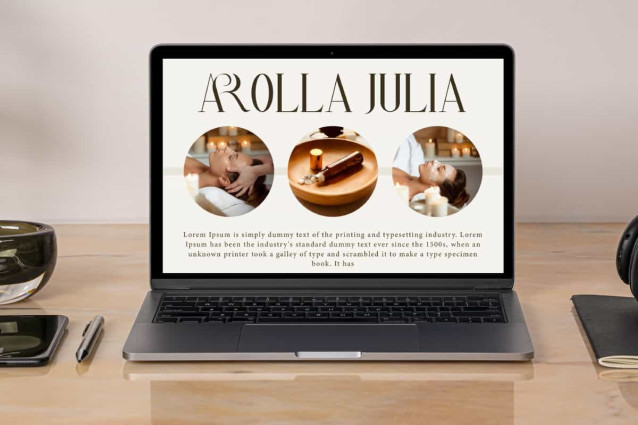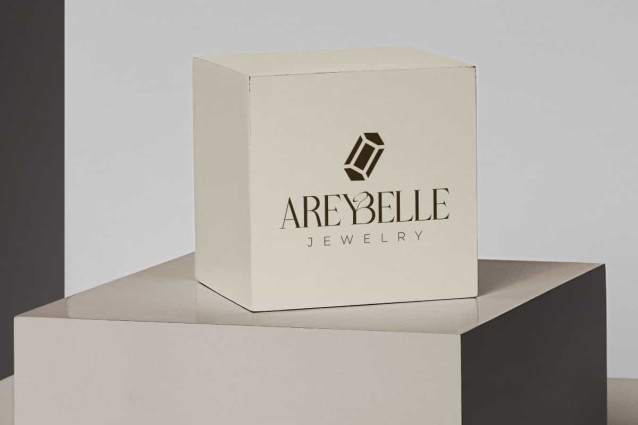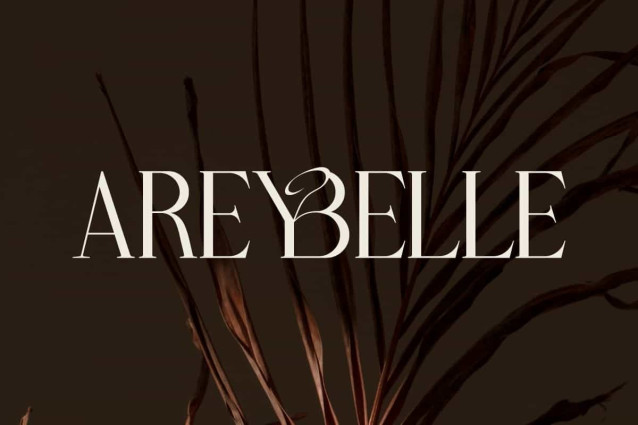
Areybelle Font
Areybelle Font is a modern and classy display serif font, with a touch of thin wave and decorative details. This font will be perfect for any projects, can be used for advertising, blog, brand image, custom design, invitation, label, quotes, stationery, template design, website and more!
Areybelle Font includes full set of Uppercase and Lowercase Basic Characters, Numerals, Punctuation, and Symbol. The Ligature character will add an artistic and exclusive feel, making it ideal for accessories and jewelry, beauty product, event or wedding organizer, fashion, florist, furniture, real estate, spa salon, etc.